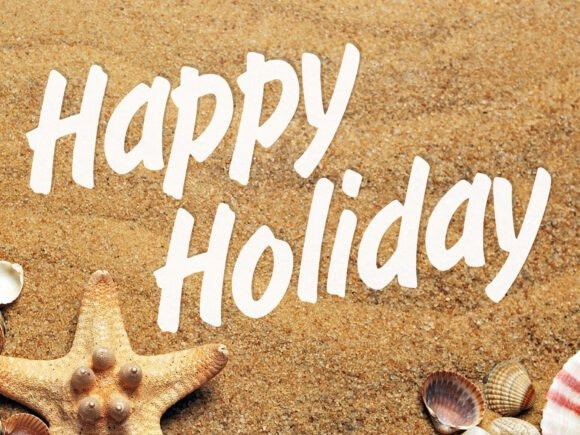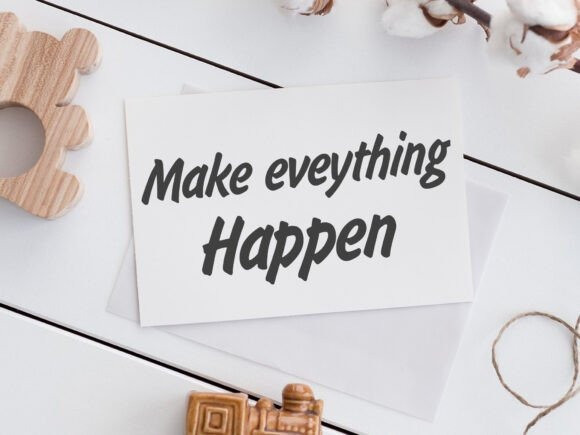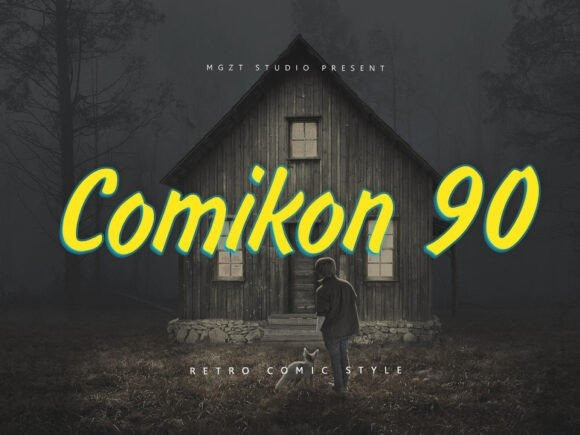
Comikon 90 Font
Comikon 90 Font – A subtle retro touch combined with elegant curves, making it a premium font. Whether used for logos, packaging or editorial, Comikon 90 brings a unique balance of playful retro and unique elegance to any design.